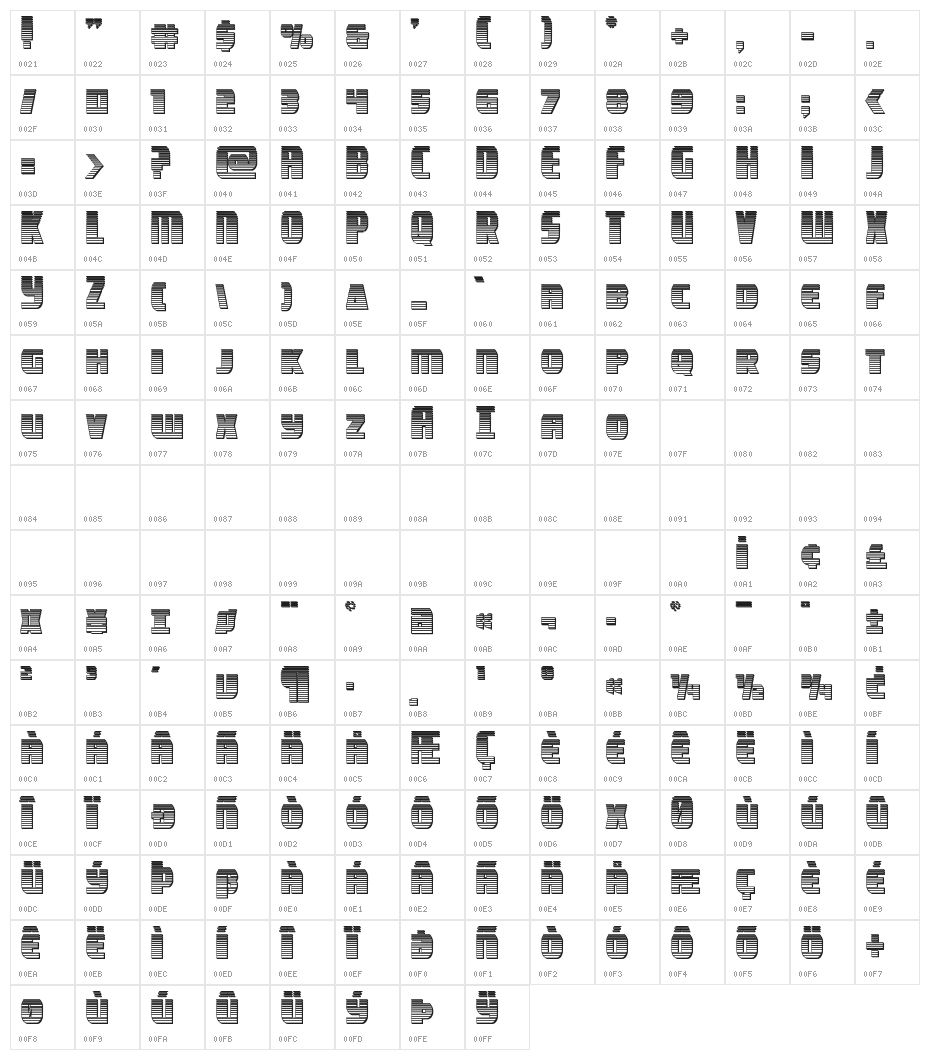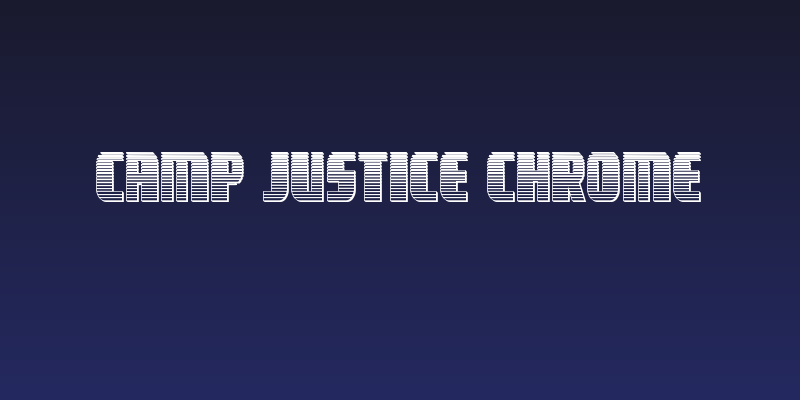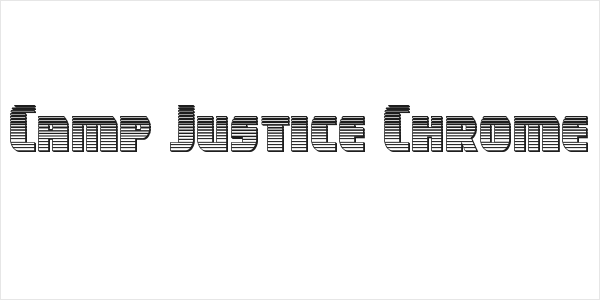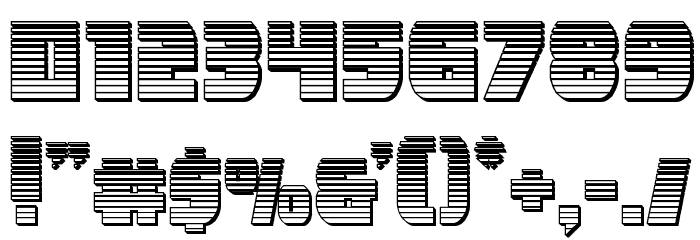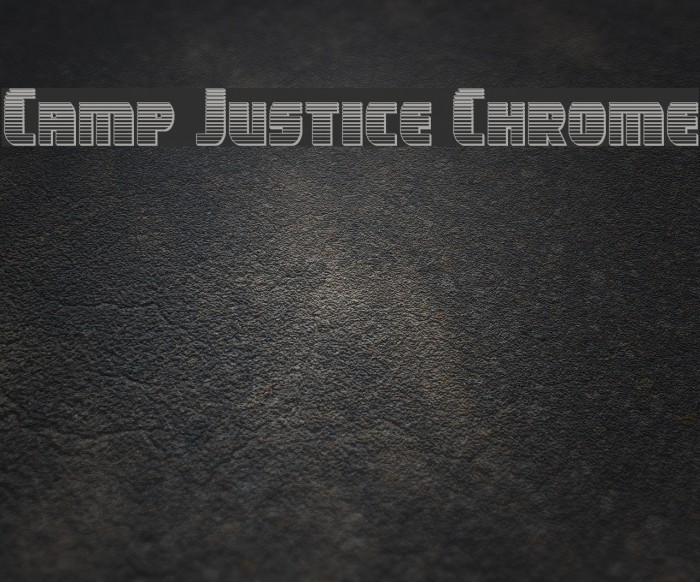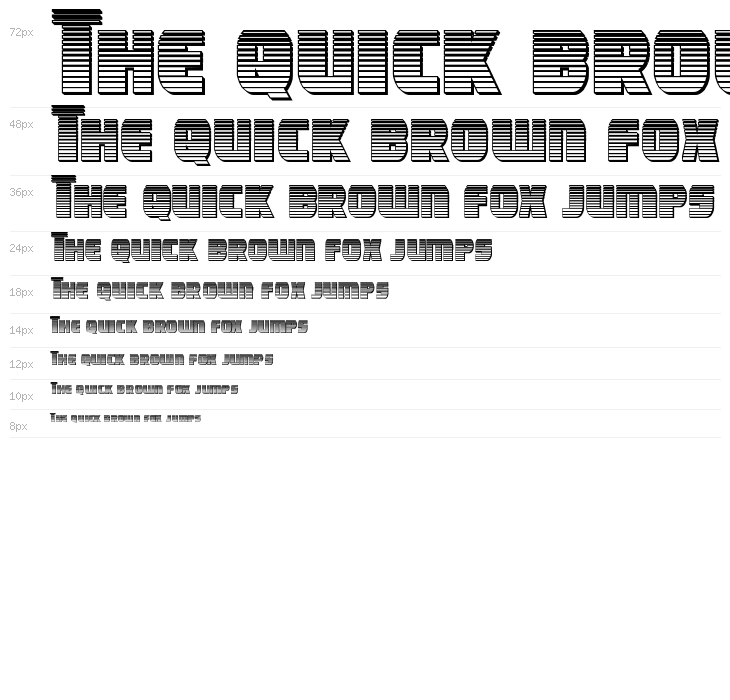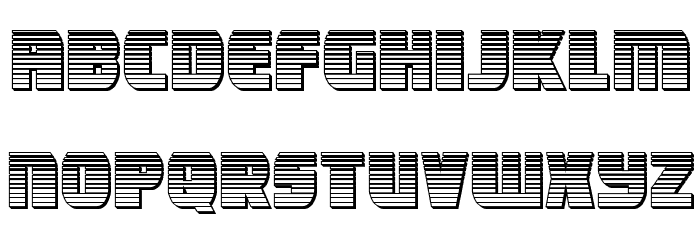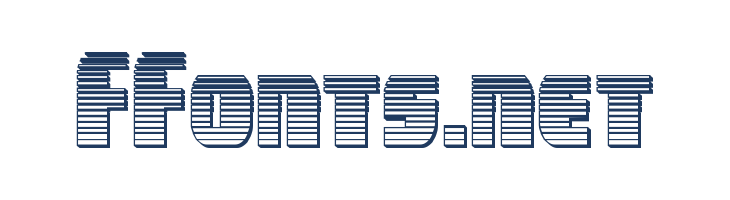
Camp Justice Chrome Font
This font features a bold, geometric design with a distinct 3D effect created by horizontal lines running through each character. The uppercase and lowercase letters, as well as numbers and special characters, maintain a consistent style that emphasizes a futuristic and industrial aesthetic. The boldness of the characters is complemented by the striped pattern, which adds depth and dimension. This font is particularly eye-catching and is designed to stand out, making it ideal for projects that require a strong visual impact.
| Overall Style | Modern, Futuristic |
| Proposed Projects | Ideal for poster designs, branding, logos, and any project requiring a futuristic or industrial feel. |